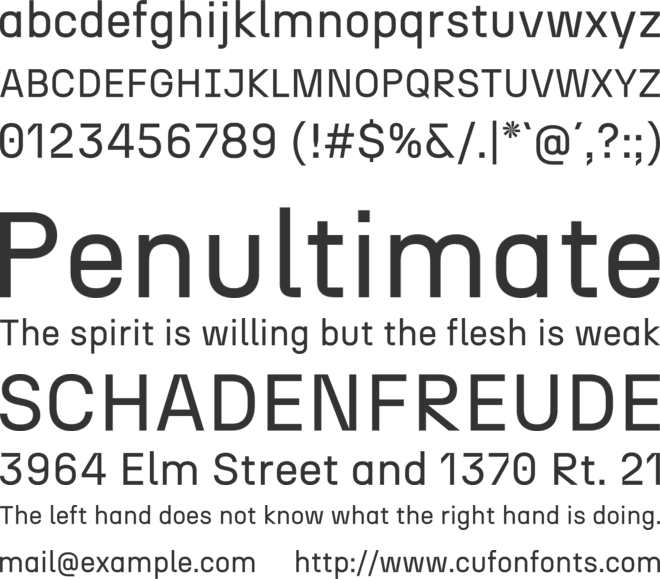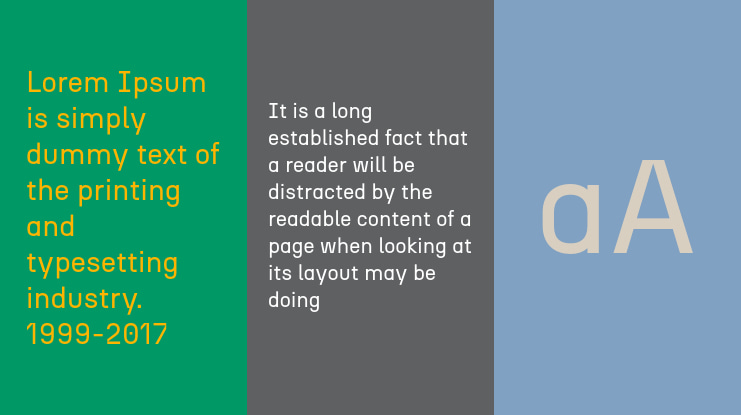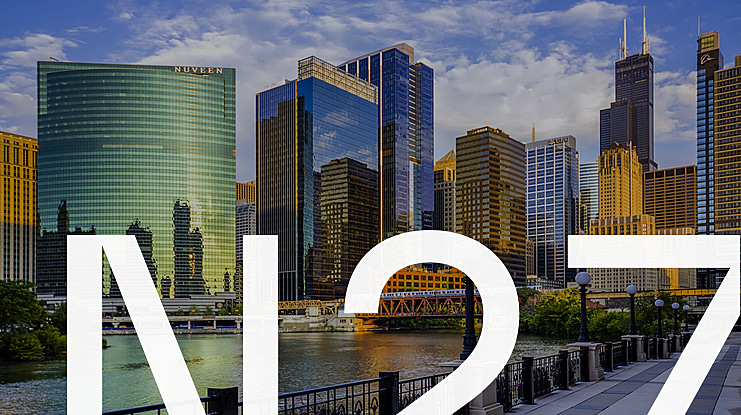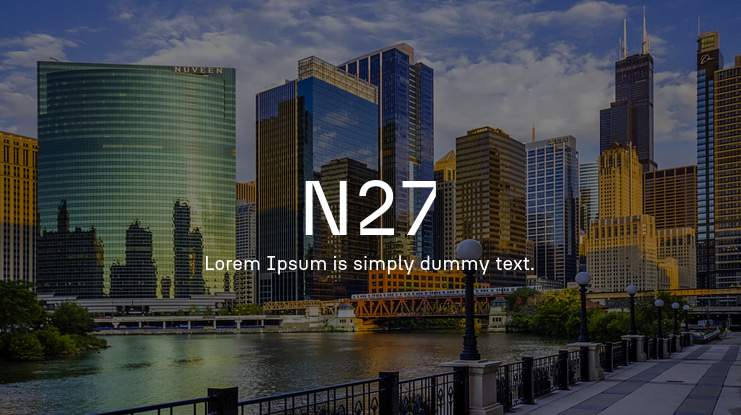
N27 Font Family
This font is a strong bold sans serif, with solid lines, paired with bold yet soft rounding. N27 works great in headlines, short and long copies and it is perfect for modern branding and logo design, editorial design, web design, apps, packaging and countless other projects. It comes in 12 different weights with matching italics.